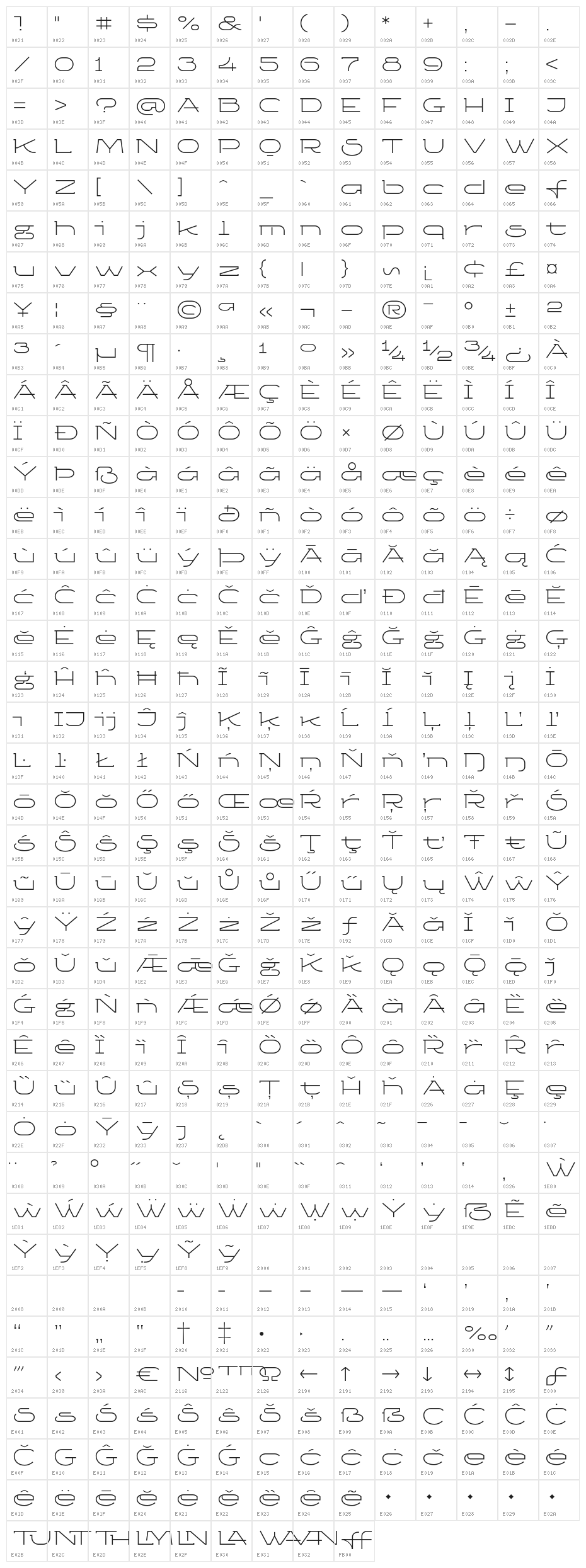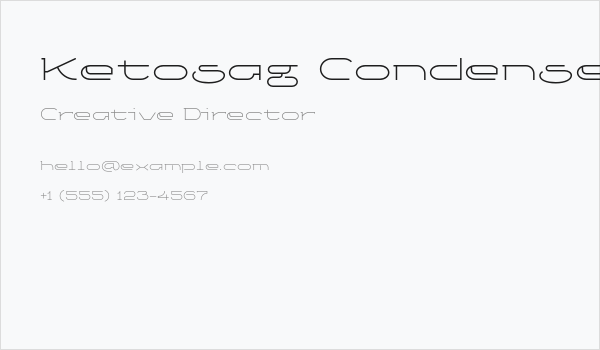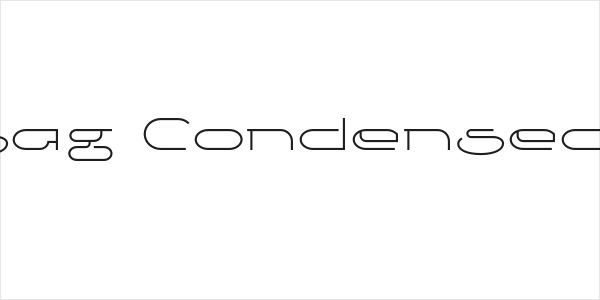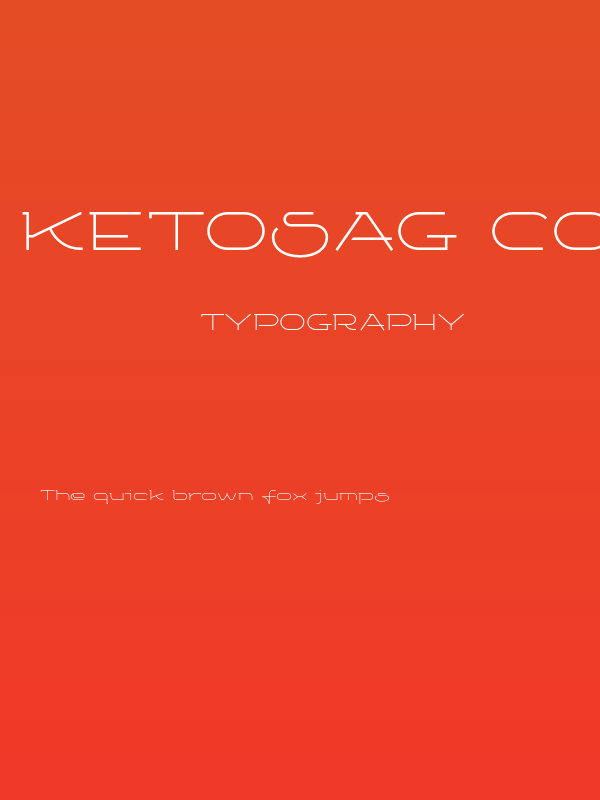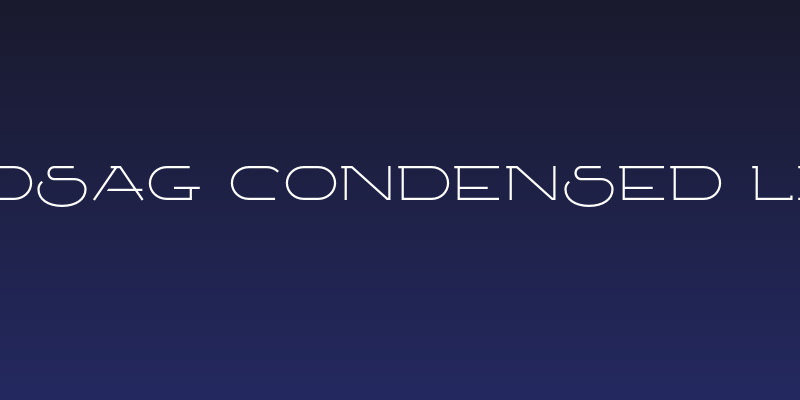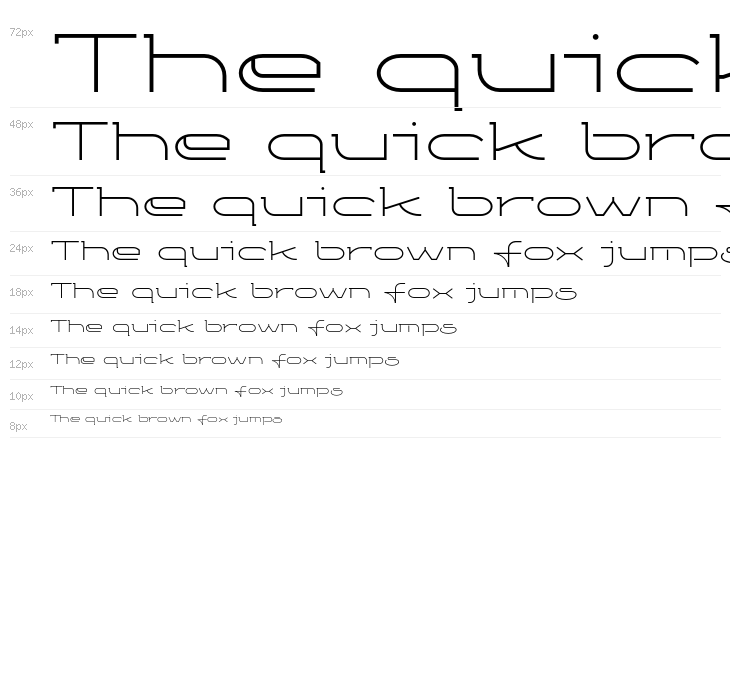
Ketosag Condensed Light Font
Ketosag Condensed Light Description
This font features a sleek, modern design with a condensed and light structure. The characters are crafted with minimalistic lines, offering a futuristic and clean appearance. The uppercase and lowercase letters maintain a consistent height, contributing to its uniform look. The numerals and special characters are designed with the same minimalist approach, ensuring a cohesive style across all glyphs. This font's thin strokes and geometric shapes make it ideal for contemporary design projects.
| Proposed Projects | Ideal for tech branding, modern websites, minimalist posters, and futuristic design projects. |